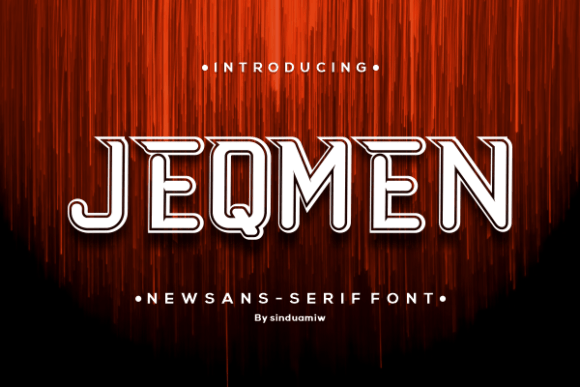
Behold, the Jeqmen Font, the ultimate display font, a masterpiece of modern design that will transform your creative visions into captivating realities! This font is not just a collection of letters; it's an artistic journey that will elevate your designs to new heights of sophistication and elegance.
When you download Jeqmen, you're not just acquiring a font; you're embarking on a voyage of visual enchantment. This font is meticulously crafted to ignite your imagination and leave a lasting impression on your audience. Its sleek and contemporary lines, coupled with its captivating curves, will make your words dance off the page.
Picture this: a stunning resume that commands attention, a captivating logo that exudes professionalism, or an eye-catching social media post that captivates your followers. Jeqmen is the secret ingredient that will make your designs shine brighter than ever before.
Unlock the power of Jeqmen and unleash your creativity. Embark on a design adventure where boundaries are shattered, and possibilities are endless. Let your imagination soar and allow Jeqmen to guide you towards design excellence.